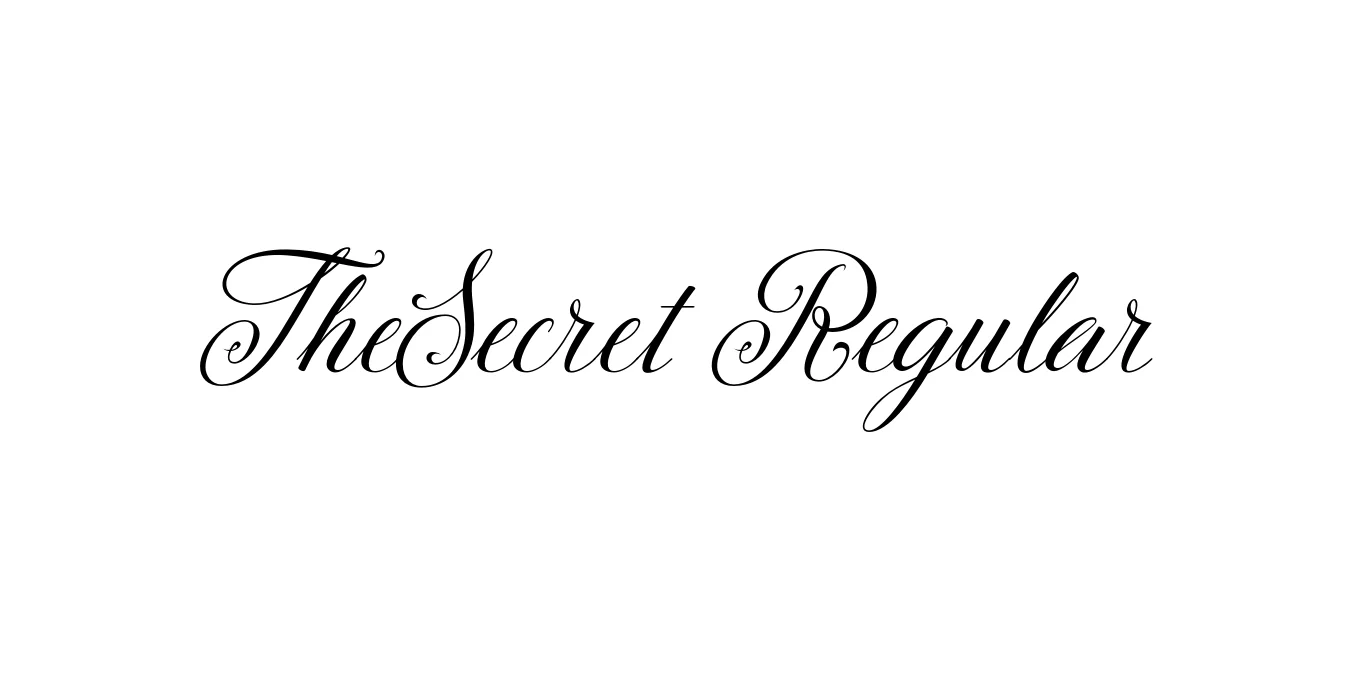
TheSecret Regular
Designed by Hendra Maulia (Dirtyline Studio)
TheSecret Regular is a sophisticated handwritten script typeface known for its elegant and fluid movement. Designed by Hendra Maulia, this font captures the essence of natural calligraphy with its delicate strokes and expressive ligatures. It bridges the gap between traditional penmanship and modern digital design, making it a favorite for projects that require a touch of personal intimacy and high-end flair.
The font is particularly distinguished by its extensive set of swashes and stylistic alternates, which allow designers to create unique typographic layouts. Whether used for branding or editorial design, TheSecret Regular maintains excellent legibility while providing an organic, handcrafted feel that stands out in a sea of rigid sans-serifs.
TheSecret Regular Best Uses
Perfect for adding a touch of elegance to save-the-dates and formal invites.
Ideal for lifestyle brands, fashion labels, and signature-style corporate identities.
Great for creating inspiring quotes and stylish Instagram graphic overlays.
Enhances the luxury feel of cosmetic, perfume, and boutique product labels.